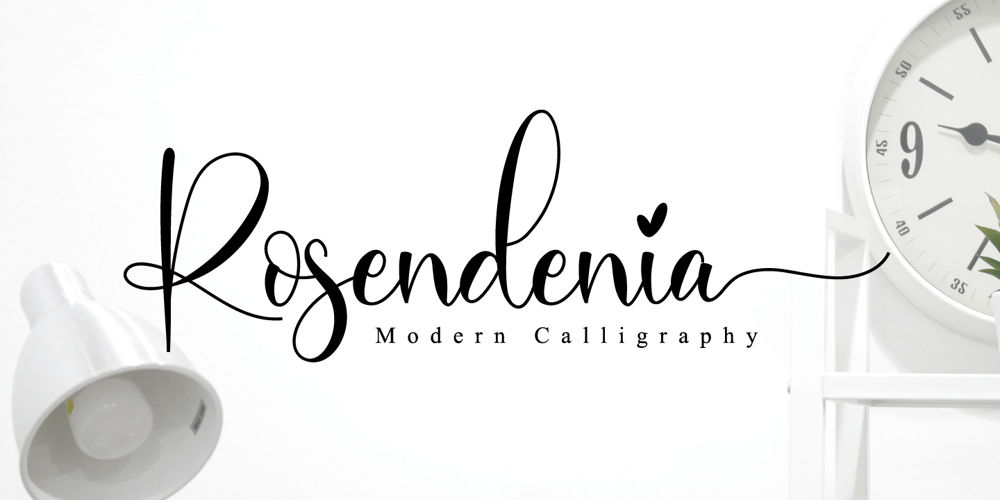
Rosendenia Font Family was designed by Novia Himatunnisa and published by Nissa Nana. Rosendenia contains 1 styles and family package options. Rosendenia is a beautiful script font. It has a classy, elegant, and modern look which can be used for logos, branding, invitations, stationery, wedding designs, social media posts, and every other design in need of a handwritten touch.